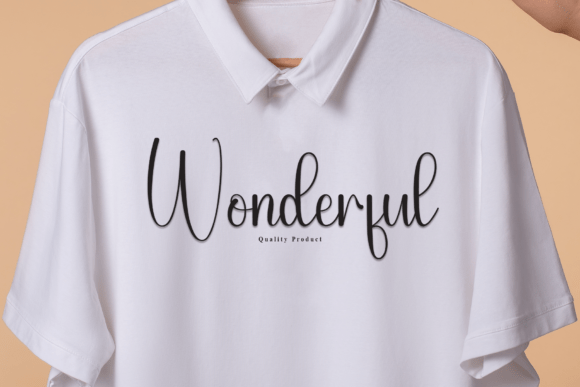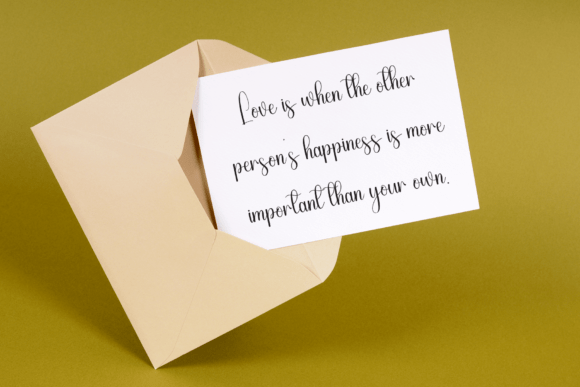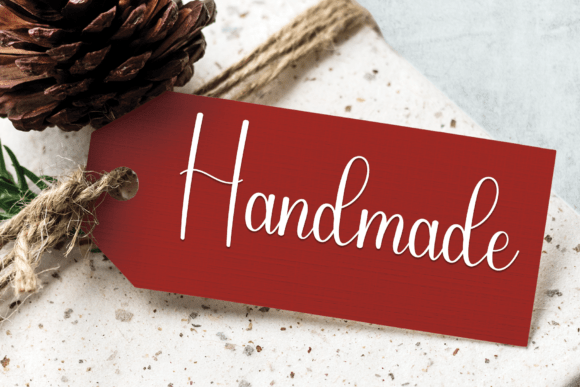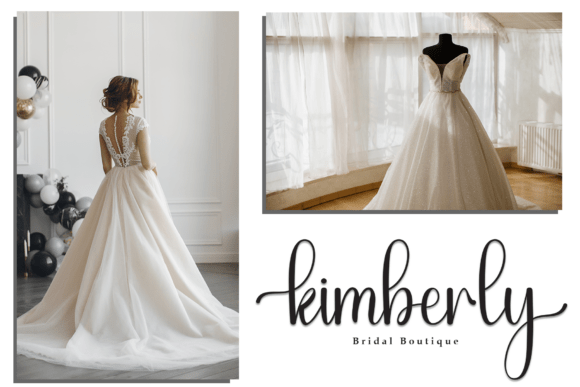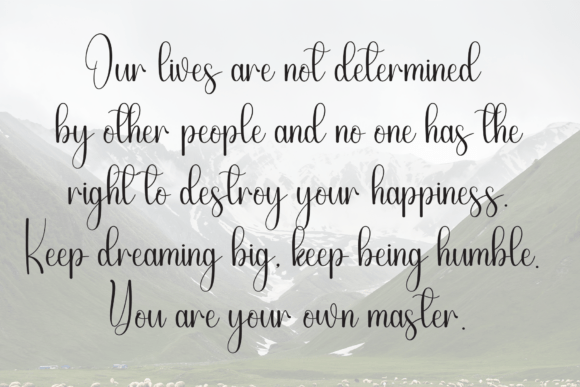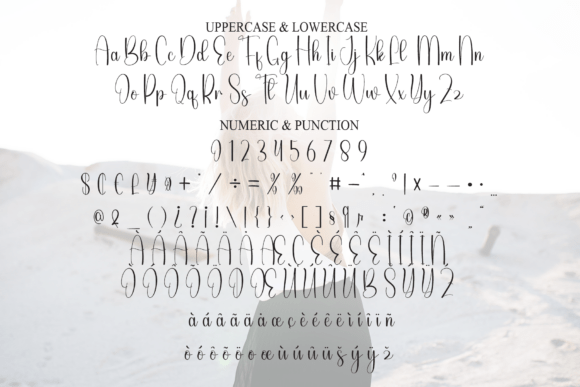
Introducing Happy Font: Elevate Your Designs with Elegance and Fluidity
In the world of typography, fonts play a crucial role in conveying the tone and personality of a brand, product, or creative project. Among the numerous font styles available, handwritten script fonts have gained immense popularity for their unique ability to add a personal touch to designs. One such font that has captured the hearts of designers and crafters alike is the Happy Font. This stylish handwritten script font is renowned for its elegance, fluidity, and sophisticated feel, making it an ideal choice for a wide range of applications.
The Characteristics of Happy Font
Happy Font is a beautifully crafted handwritten script font that boasts smooth, flowing strokes, creating a natural and refined aesthetic. Its elegant appearance is characterized by:
- Smooth, flowing strokes: The font’s fluid strokes give it a dynamic and organic feel, perfect for creating a sense of movement and energy in designs.
- Elegant and sophisticated feel: Happy Font’s refined appearance makes it suitable for high-end branding, luxury products, and creative projects that require a touch of sophistication.
- Graceful balance of charm and modernity: This font strikes the perfect balance between classic charm and modern style, allowing designers to create visually appealing and timeless designs.
Perfect for Branding, Invitations, and Creative Projects
Happy Font’s versatility makes it an excellent choice for a variety of applications, including:
- Branding: Use Happy Font to create a unique and memorable brand identity that reflects your company’s values and personality.
- Invitations: Add a touch of elegance and sophistication to your invitations, whether it’s for a wedding, birthday party, or corporate event.
- Creative projects: Happy Font is perfect for creative projects, such as magazine layouts, packaging design, and digital graphics, where a personal and artistic touch is desired.
Why Choose Happy Font?
With so many fonts available, why should you choose Happy Font for your next project? Here are a few compelling reasons:
- Unique and distinctive: Happy Font’s elegant and sophisticated appearance sets it apart from other fonts, ensuring your designs stand out from the crowd.
- Easy to read: Despite its elegant appearance, Happy Font remains highly legible, making it suitable for both headings and body text.
- Highly versatile: Happy Font can be used for a wide range of applications, from digital designs to print materials.
Tips for Using Happy Font Effectively
To get the most out of Happy Font, consider the following tips:
- Pair with contrasting fonts: Combine Happy Font with a contrasting font to create visual interest and hierarchy in your designs.
- Experiment with colors: Happy Font looks stunning in a variety of colors, so don’t be afraid to experiment and find the perfect hue for your design.
- Use for headlines and titles: Happy Font’s elegant appearance makes it perfect for headlines and titles, where you want to make a lasting impression.
In conclusion, Happy Font is a stylish and elegant handwritten script font that can elevate your designs to new heights. Its smooth, flowing strokes, sophisticated feel, and versatile nature make it an excellent choice for branding, invitations, and creative projects. With Happy Font, you can add a personal and artistic touch to your designs, setting them apart from the crowd. So why not give Happy Font a try and experience the power of elegant typography for yourself?